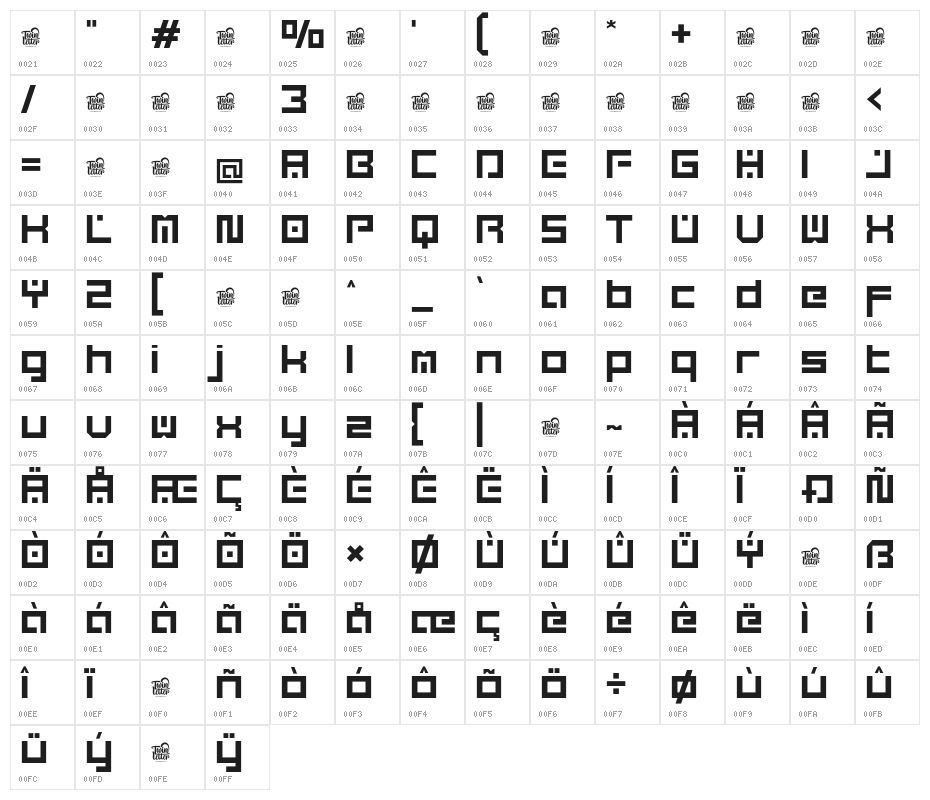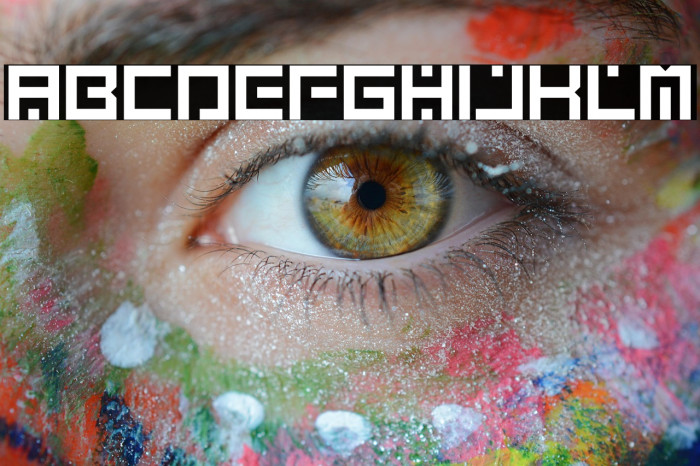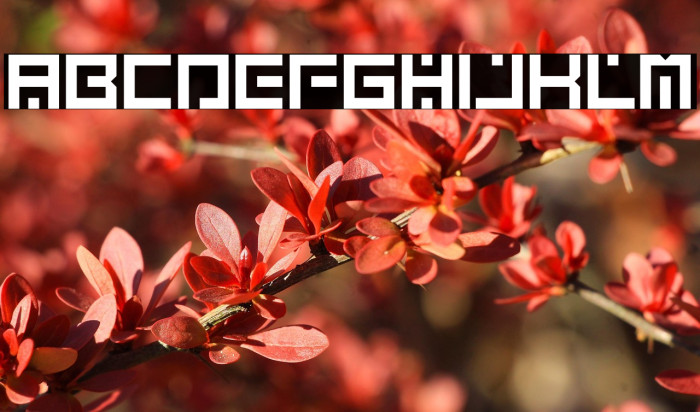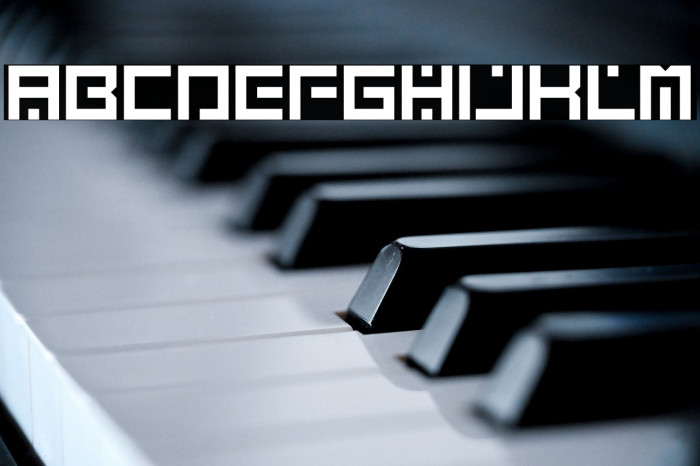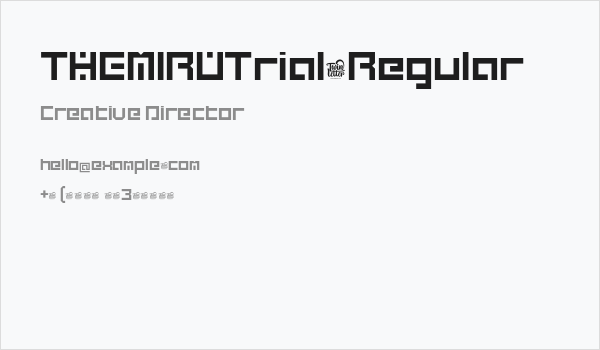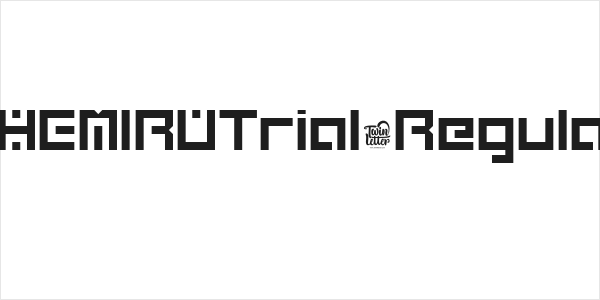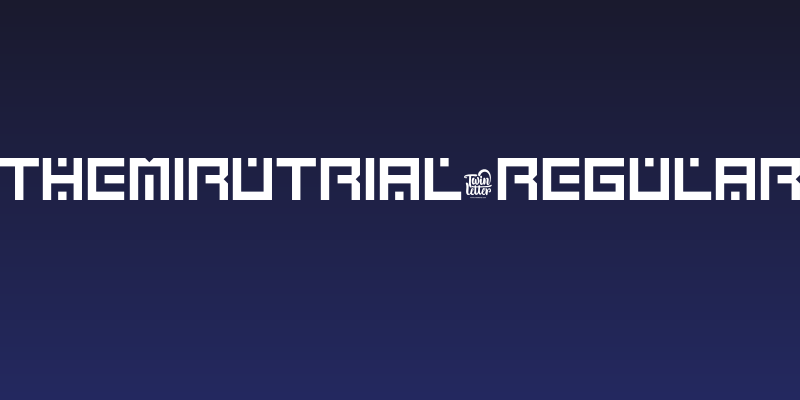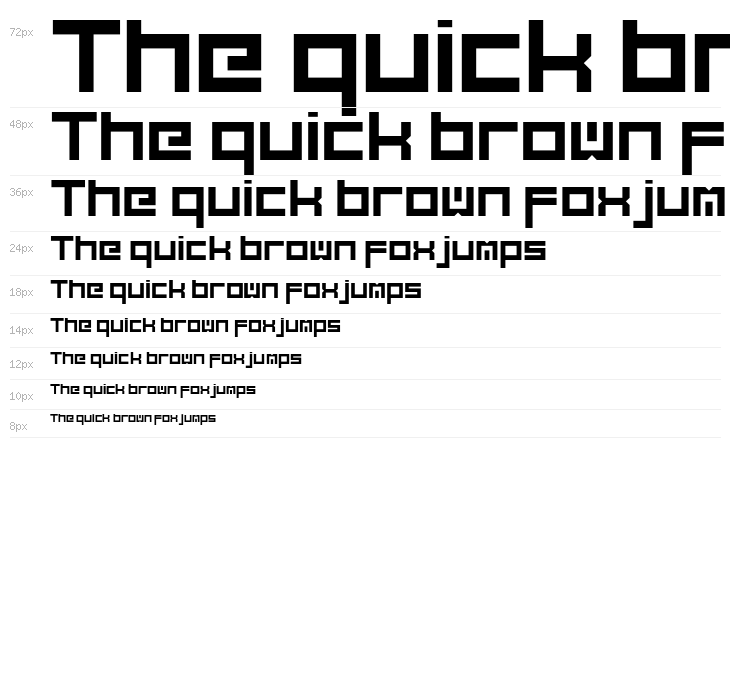
THEMIRUTrial-Regular Font
✎ Futuristic
THEMIRUTrial-Regular Description
This font features a bold, geometric design with a modern and futuristic aesthetic. The characters are constructed with straight lines and sharp angles, giving it a blocky and robust appearance. The uppercase and lowercase letters maintain a consistent style, with a uniform height and width that enhances readability. The numbers and special characters are designed to match the overall geometric theme, providing a cohesive look across all elements. The font's unique style makes it suitable for projects that require a strong visual impact.
| Proposed Projects | Ideal for technology branding, video game titles, futuristic posters, and digital media. |